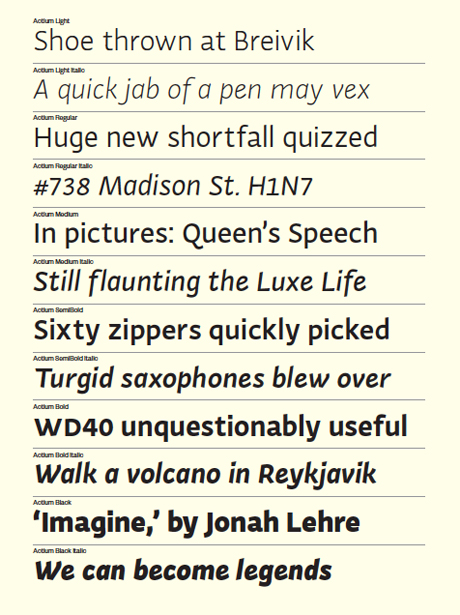
Designer:
Gerben Dollen - typemafia.com
Category:
Sans serif
Dutch type designer Gerben Dollen studied graphic design in Groningen in the Netherlands. An exchange program at the California College of the Arts piqued his interest in typeface design and led him to the University of Reading, UK, where he completed an MA in Typeface Design in 2007. Working from his graphic and type design studio, Type Mafia, in Amsterdam, Gerben has recently released his contemporary sans serif typeface family, Actium.
Where did the name of the typeface come from and what is its significance?
In my opinion, a name should meet quite a few requirements. It needs to consist of some letters that reflect the typeface’s personality, look good as a word and, of course, it should sound nice as well. At first I had another name in mind for Actium, but the pronunciation didn’t match the typeface’s character.
What inspired the design of your typeface?
Hard to say, really. I started the design while I was a student at the University of Reading. That year was like being in a roller coaster all the time: new experiences because I lived abroad, seeing and analysing lots of typefaces and other related typography and design at the university, field trips, lectures, regular visits to London during weekends, new music and food. However, there is one thing that has a clear root because of my time in England: Smart Capo, an OpenType feature to deal with alphanumeric situations in which capital letters are combined with old-style numerals.
What was the first character you designed and why?
There wasn’t really a certain first character I drew; however, as part of the MA in Typeface Design we were supposed to draw the letters ‘adhesion’ first and iterate them to a certain level before adding other characters. This brief set of letters enables rapid development and testing of a new typeface’s basic proportions and features.
Is it important for a typeface to have a few distinctive characters to make it more memorable?
I’m not sure if a typeface really needs a few distinctive characters; sometimes you can’t, if it is a modest design. On the other hand, not all characters need to be distinctive on their own. The group performance precedes the individual; it is a system, a team, so some glyphs need to be adapted to make it fit.
What do you see as the typeface’s ideal uses?
I have seen it used in a few books, some technical literature and a tattoo. I would like to see it used more widely for signage, wayfinding and corporate identities.
Many type designers seem interested in designing new display typefaces, but are text typefaces more challenging to design?
I find designing text typefaces more challenging than designing display faces, because text faces require stricter criteria. Options are more limited, because they need to be read easily in longer passages at small sizes. So it actually is quite a conventional field. Also, there is already a lot done, so finding new approaches in this area that differ from all other typefaces really interests me. You are most likely not designing just a single weight, but a family with multiple weights and styles and it is challenging to make them belong to each other. It’s a chellenge that they portray the same identity/personality when they are so different in weight.
Actium by Gerben Dollen